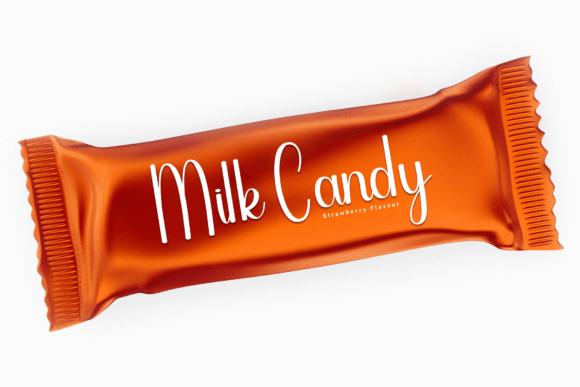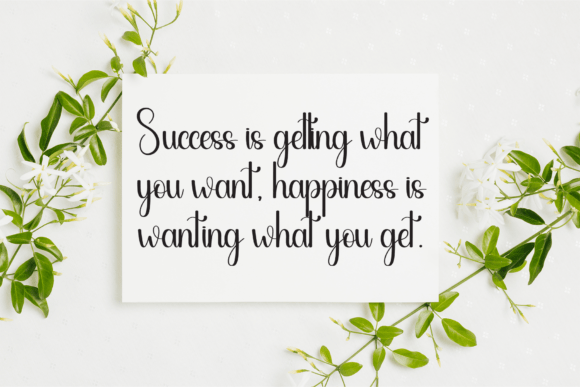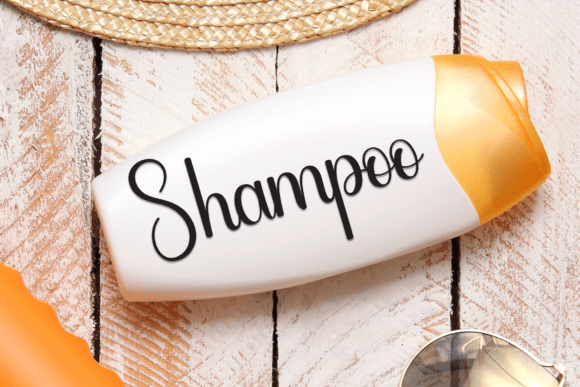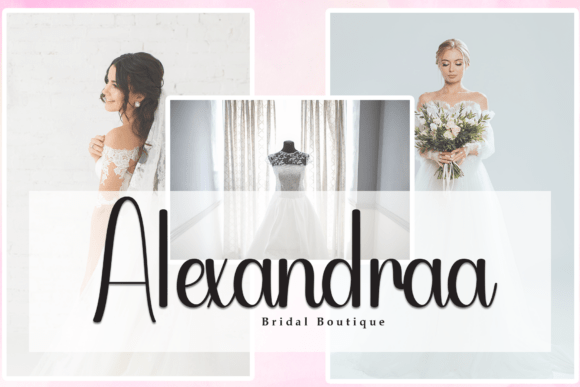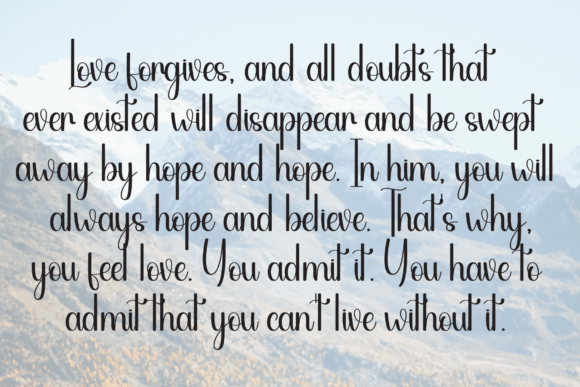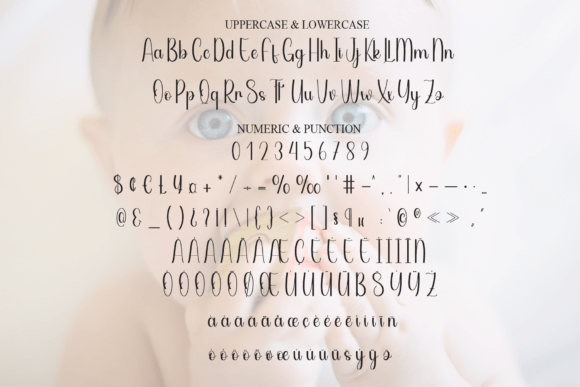
Babyish Font: Elevate Your Designs with a Touch of Whimsy and Elegance
In the world of typography, fonts play a pivotal role in communicating the essence of a brand or design. Among the myriad of typefaces available, the Babyish Font stands out as a stylish handwritten script font that seamlessly blends modern elegance with a playful touch. Its fluid strokes and charming curves are designed to bring a personal feel to any design, making it an ideal choice for a variety of creative projects.
The Characteristics of Babyish Font
Babyish Font is characterized by its smooth, flowing lines and delicate curves, which contribute to its elegant and playful appearance. This font is not just about aesthetics; it’s also highly versatile, making it suitable for a range of applications from logos and packaging to invitations and more. The fluidity of its strokes gives it a dynamic feel, while its charming curves add a touch of warmth and approachability.
Why Choose Babyish Font?
There are several reasons why designers and crafters might choose Babyish Font for their projects:
- Elegance and Playfulness: Babyish Font strikes the perfect balance between elegance and playfulness. Its modern design ensures that your projects look contemporary and sophisticated, while its playful elements add a whimsical touch.
- Versatility: This font is incredibly versatile. Whether you’re working on a logo, packaging, invitations, or any other design project, Babyish Font can be adapted to fit your needs.
- Personal Touch: One of the standout features of Babyish Font is its ability to add a personal touch to designs. Its handwritten nature gives projects a more intimate and unique feel.
- Easy to Read: Despite its elegant and playful design, Babyish Font remains easy to read, making it practical for a variety of uses.
Applications of Babyish Font
The applications of Babyish Font are vast and varied. Here are a few ideas to get you started:
- Logos: Create a memorable logo for your brand that stands out with its unique blend of elegance and playfulness.
- Packaging: Add a personal touch to your product packaging and make it more appealing to customers.
- Invitations: Whether it’s a wedding invitation, a birthday party invite, or any other special occasion, Babyish Font can add a touch of whimsy and elegance.
- Marketing Materials: Use Babyish Font in your marketing materials to give them a distinctive look that captures attention.
Tips for Using Babyish Font Effectively
To get the most out of Babyish Font, consider the following tips:
- Pair with Complementary Fonts: When using Babyish Font in a project, consider pairing it with a more straightforward, sans-serif font to create contrast and enhance readability.
- Adjust Size and Color: Play around with the size and color of the font to ensure it fits perfectly with your design.
- Use it Sparingly: While Babyish Font is beautiful, it can be overwhelming if used excessively. Use it sparingly to highlight key information or to add a decorative touch.
Babyish Font is a versatile and stylish addition to any designer’s toolkit. Its unique blend of modern elegance and playful charm makes it perfect for a wide range of projects. Whether you’re a professional designer or a crafter, Babyish Font offers a simple yet effective way to add a personal touch to your work. With its fluid strokes, charming curves, and adaptable nature, Babyish Font is sure to inspire creativity and elevate your designs to new heights.
So, the next time you’re looking for a font that combines sophistication with a playful edge, consider Babyish Font. Its ability to bring warmth, sophistication, and creativity to every project makes it an invaluable resource for anyone looking to make a lasting impression.